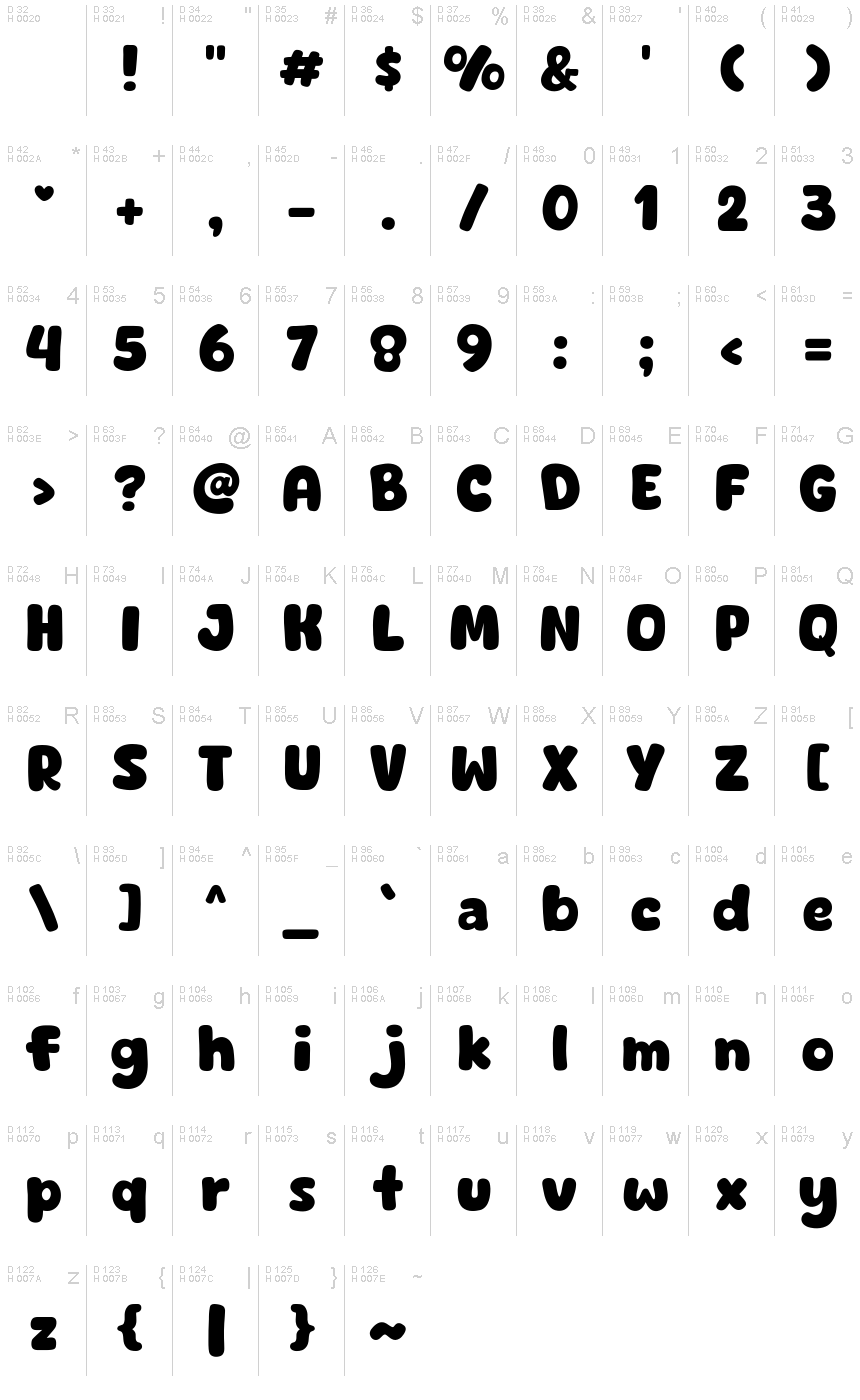
Cute Dino
Cute Dino, a captivating font designed by Khurasan, exudes a whimsical charm that instantly captivates the eye. This bold, cartoon-inspired typeface boasts a playful, rounded aesthetic, perfectly capturing the essence of its "cute dino" namesake. The distinct strokes and distinctive character shapes lend an endearing, almost child-like quality, making this font a delightful choice for a variety of creative projects.
The Cute Dino font's versatility shines through, making it a compelling option for a wide range of applications. Its bold, eye-catching presence makes it well-suited for display purposes, such as in logos, headlines, and promotional materials. Additionally, the font's playful nature lends itself beautifully to children's books, educational resources, and any design that aims to evoke a sense of joy and wonder.